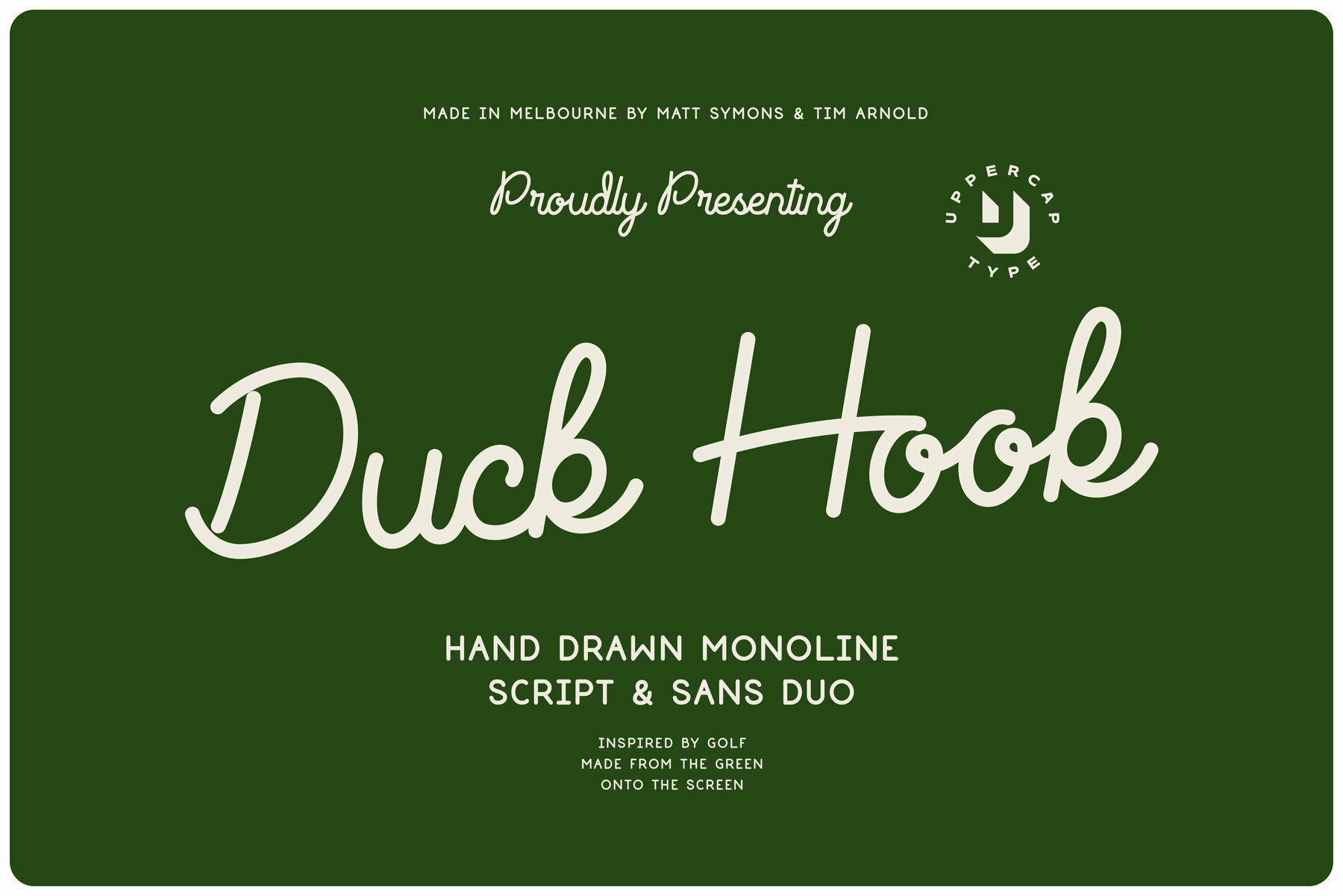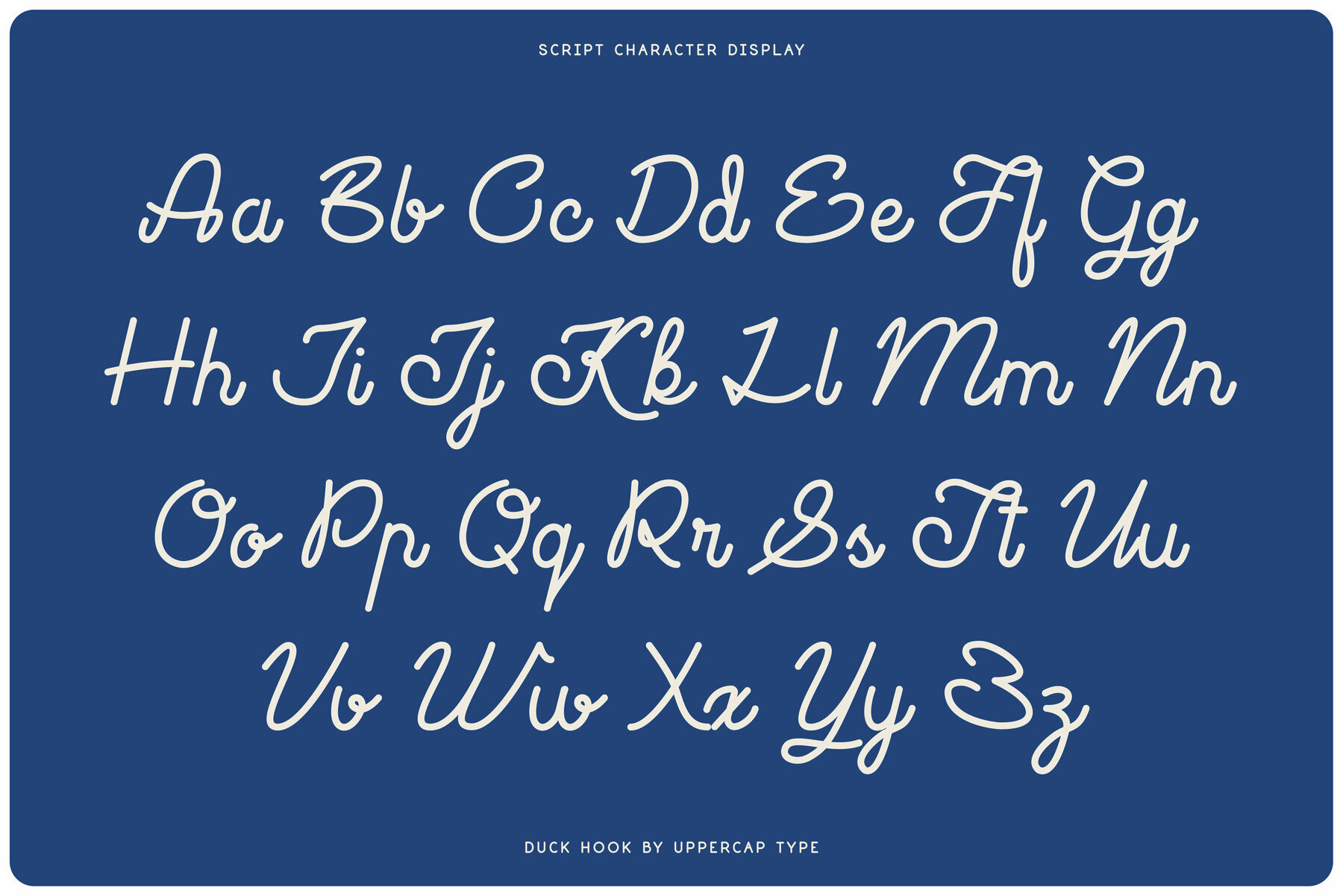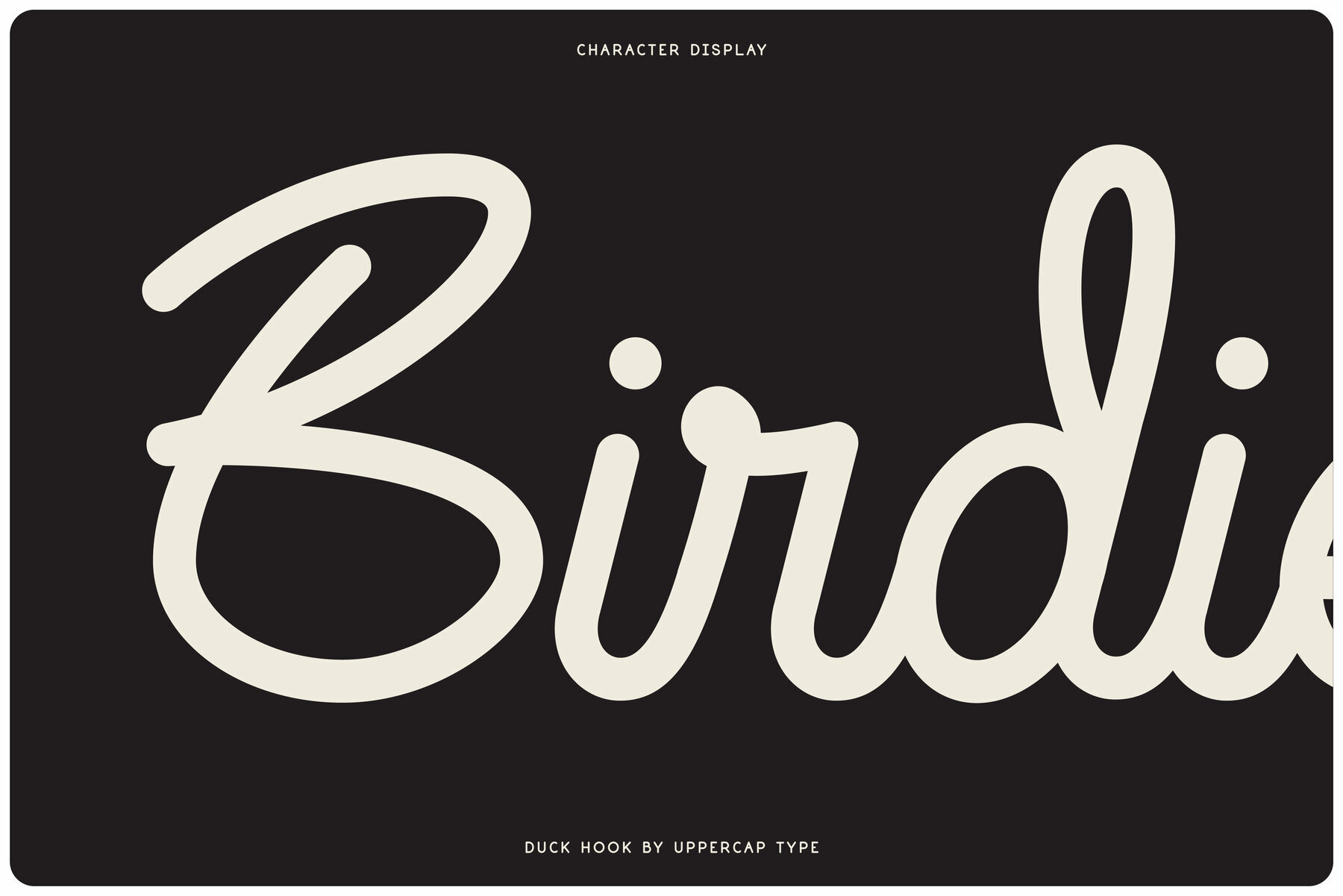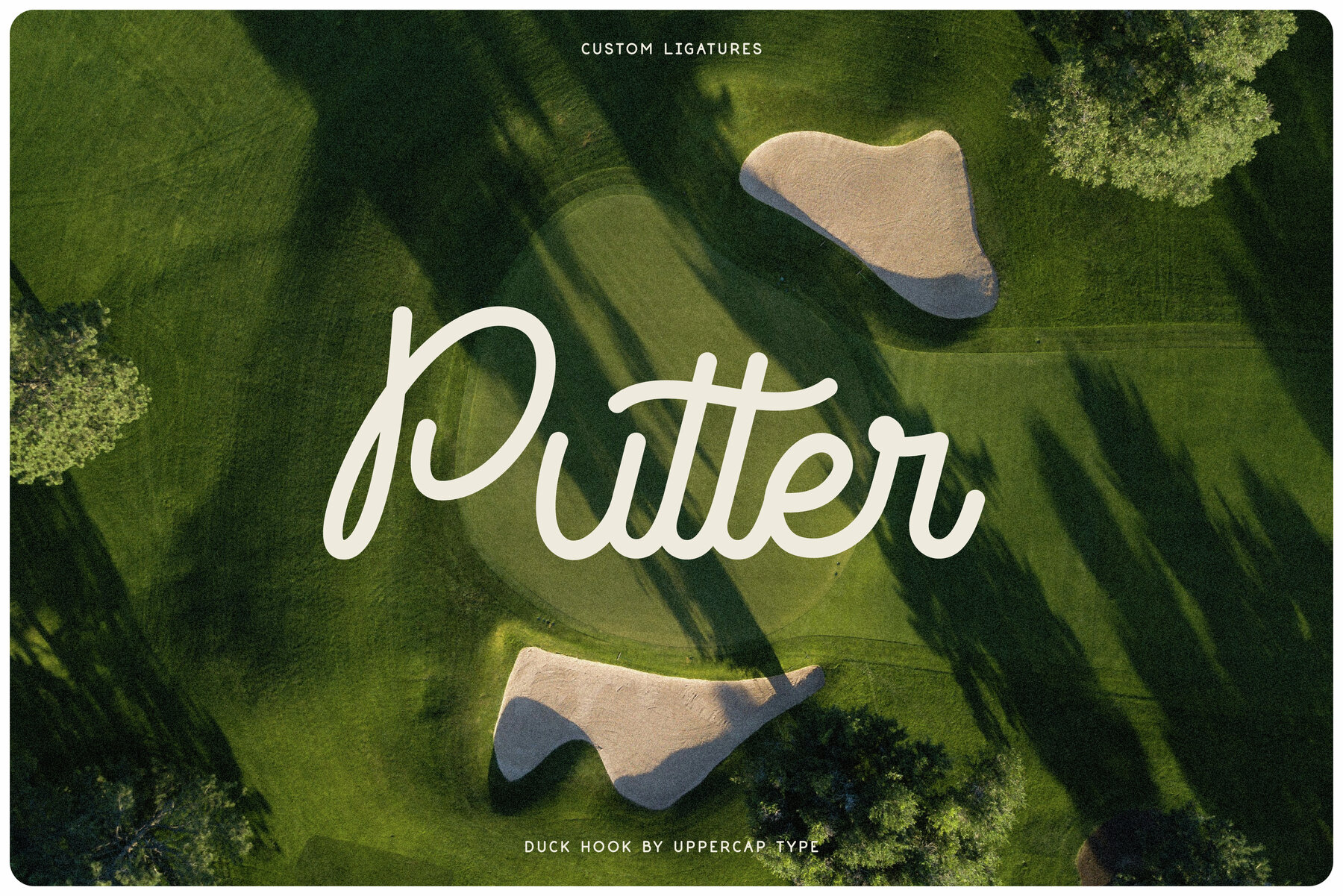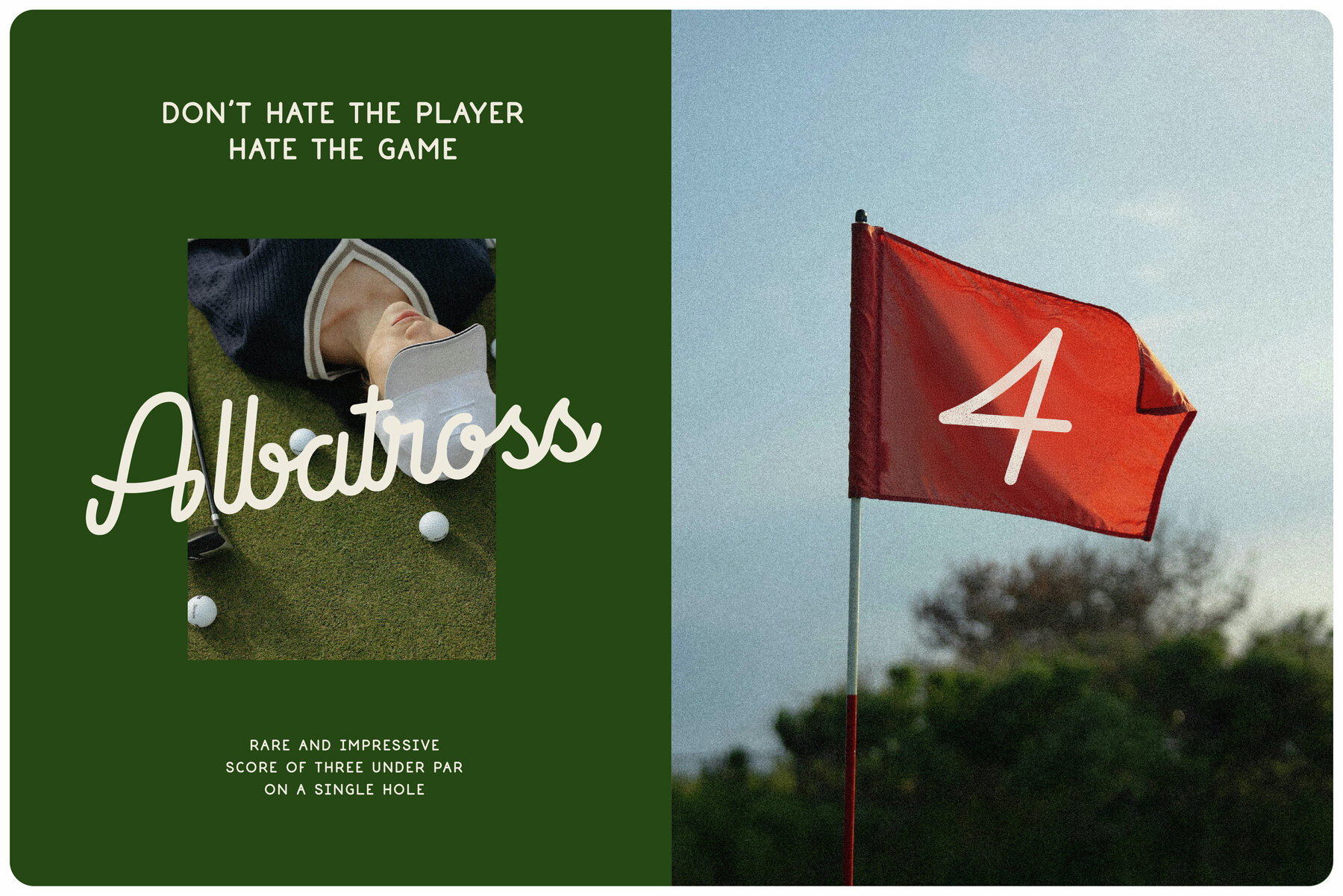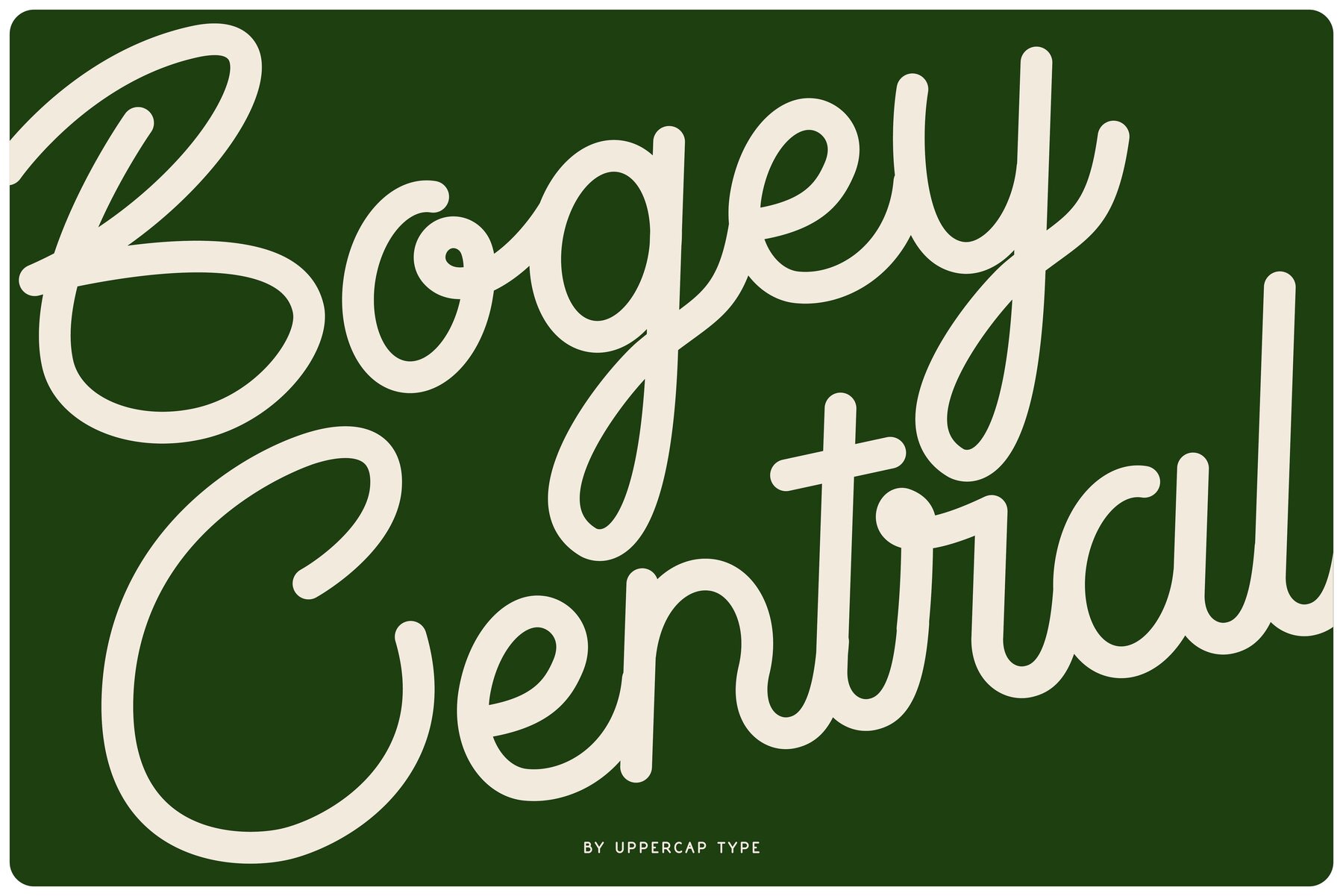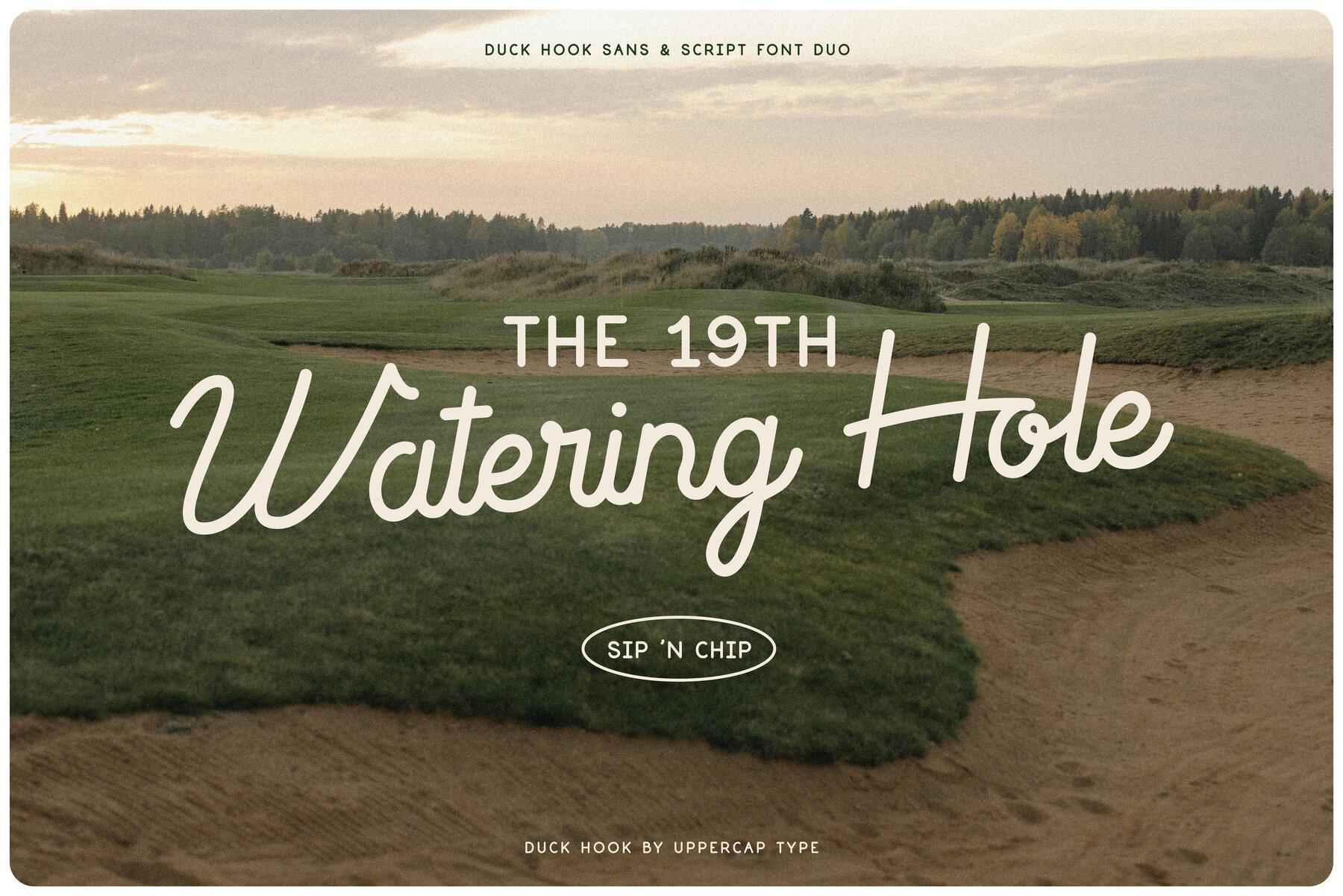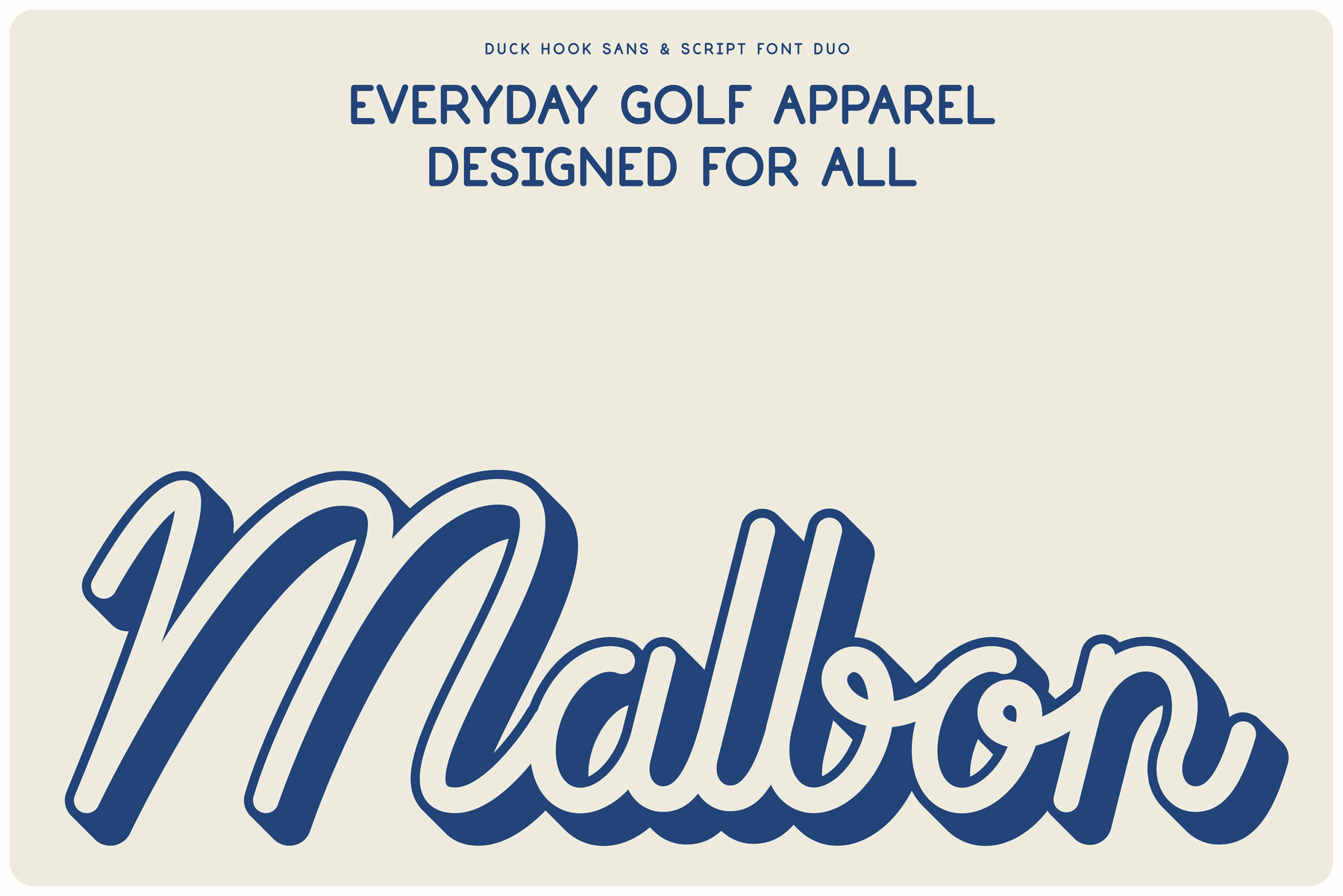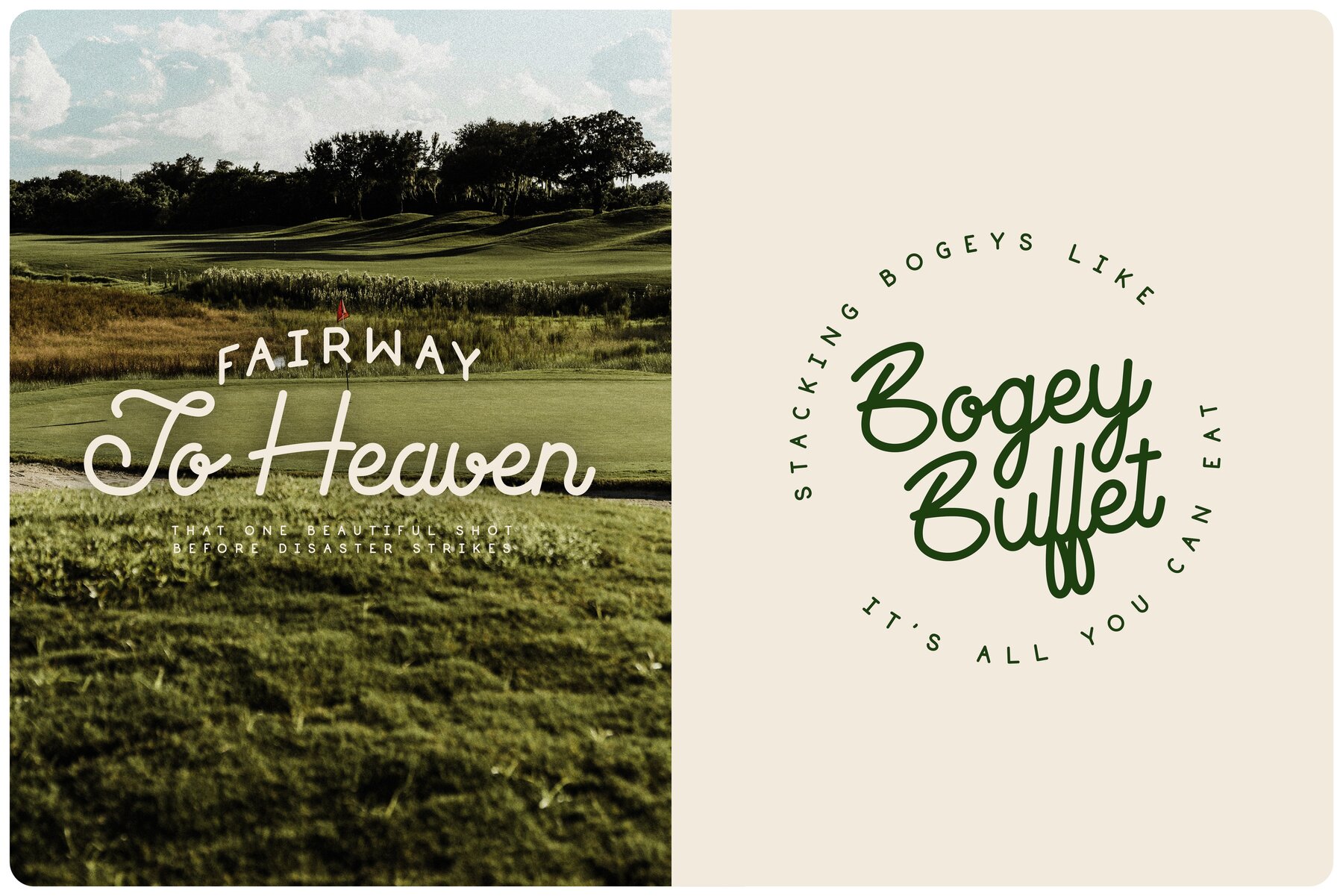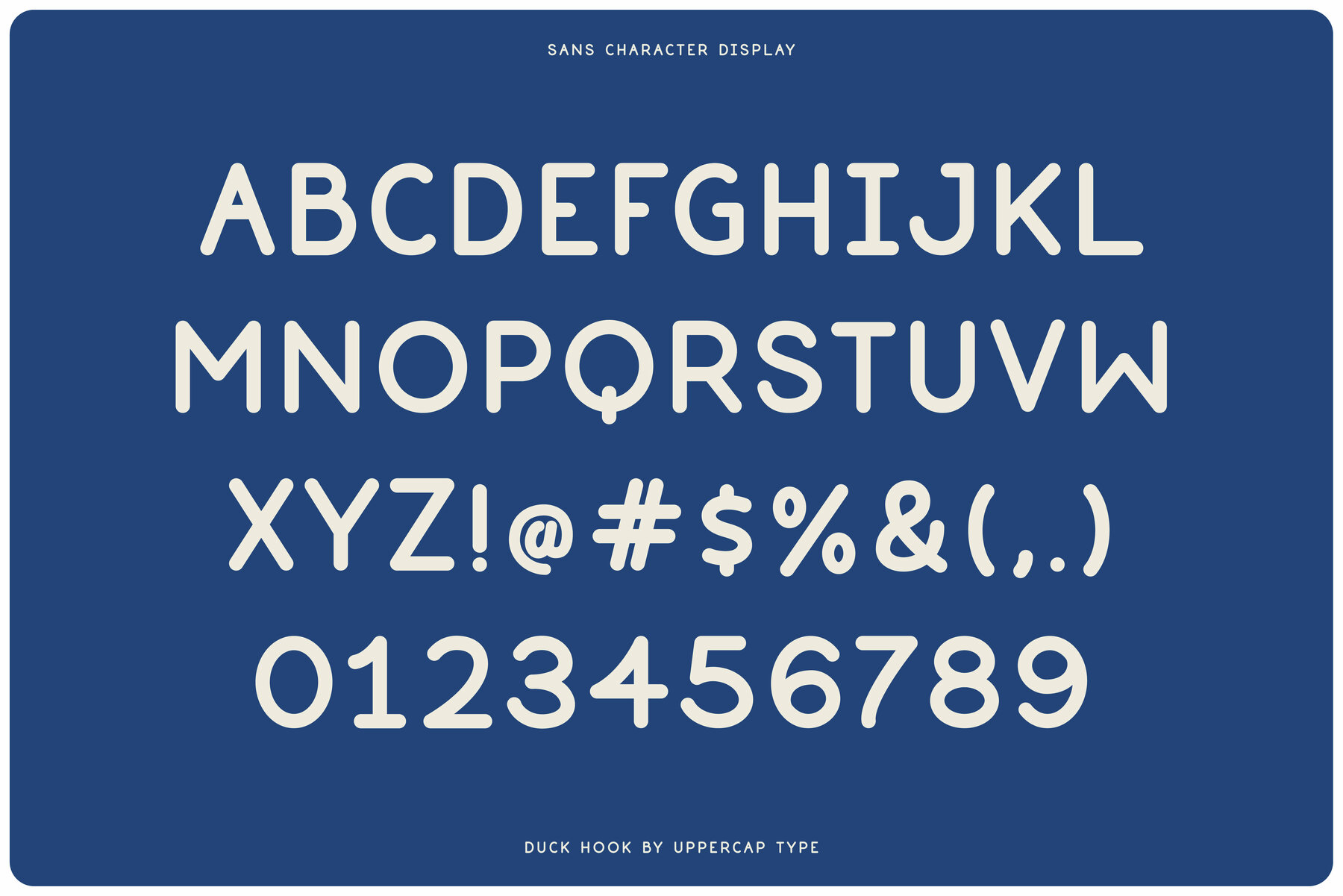
Duck Hook Font
UT Duck Hook Sans
UT Duck Hook Script
Duck Hook pairs the quirks of golf with a sophisticated design aesthetic. This duo features a smooth monoline script alongside a clean sans serif, making it an excellent choice for apparel, clubhouse menus, logo designs, posters, and typographic layouts. It's the ideal selection for bringing a playful elegance to your projects.Duck Hook: A Playful Golf-Inspired Font Duo
Versatile Features